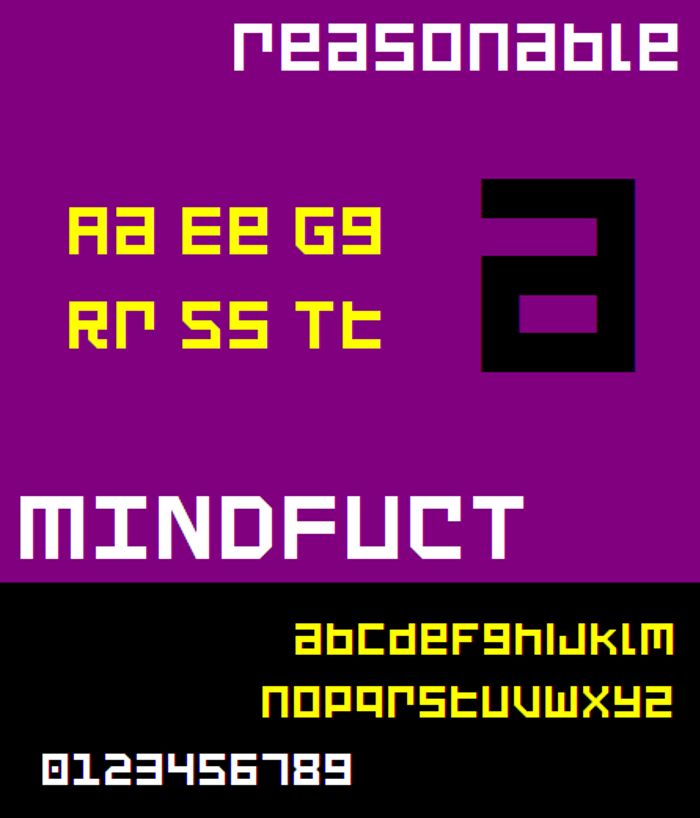
Mindfuct NBP Font
Less of a typeface than visual art. The design rationale here was an abstract thought: "I don't want to be an american idiot."
As a typeface though, it's unicase and complements Ubuntu, Neo Sans, Microsoft Sans Serif, and Verdana.